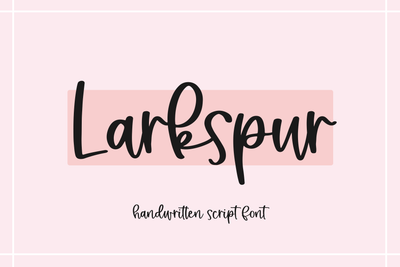
Larkspur - Handwritten Script Font
Larkspur is a modern handwritten script font!
This font is perfect for crafts, svg designs, stickers, procreate projects, shirts, mugs and more!